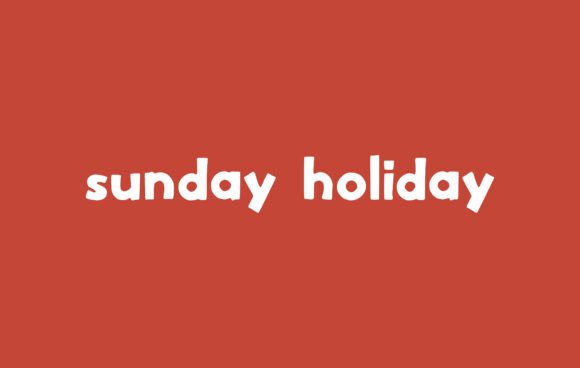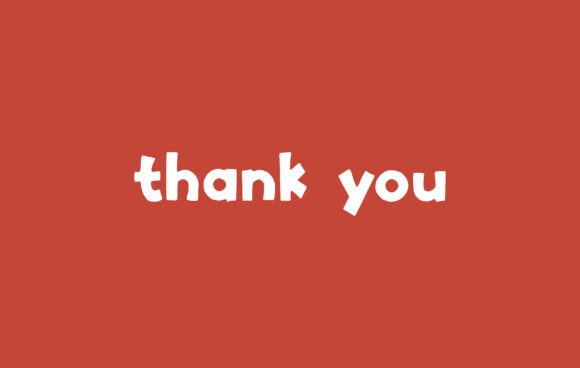
Aura Font: Elevate Your Designs with a Touch of Romance
In the world of typography, a font can make or break a design. For creatives, finding the perfect font that captures the essence of their project can be a daunting task. However, if you’re looking for a font that exudes romance, elegance, and sophistication, look no further than Aura Font. In this article, we’ll dive into the world of Aura Font, exploring its features, uses, and benefits for designers and crafters.
What is Aura Font?
Aura Font is an authentic handwritten font that boasts a romantic touch. Expertly designed to capture the hearts of designers and crafters, this font has the potential to elevate your creative ideas to new heights. With its legible and versatile design, Aura Font is perfect for a wide range of applications, from title text to body text.
Features of Aura Font
Aura Font comes with a multitude of features that make it a standout in the world of typography. Some of its notable features include:
- Authentic Handwritten Design: Aura Font is carefully crafted to mimic the imperfections and uniqueness of handwritten text, giving your designs a personal touch.
- Romantic Touch: The font’s romantic undertones make it perfect for designs that require a touch of elegance and sophistication.
- Legibility: Aura Font is designed to be highly legible, making it suitable for both title text and body text.
- Versatility: This font can be used for a wide range of designs, including magazine headlines, social media posts, branding, wedding invitations, cards, and more.
Uses of Aura Font
Aura Font is an incredibly versatile font that can be used in various design applications. Here are some ideas to get you started:
- Magazine Headlines: Add a touch of romance and elegance to your magazine headlines with Aura Font.
- Social Media: Elevate your social media posts with Aura Font, making them stand out in a crowded feed.
- Branding: Use Aura Font to create a unique and memorable brand identity that exudes sophistication and elegance.
- Wedding Invitations: Make your wedding invitations truly special with Aura Font, adding a touch of romance and whimsy.
- Cards and Stationery: Use Aura Font to create beautiful cards and stationery that are sure to impress.
Benefits of Using Aura Font
So, why choose Aura Font for your designs? Here are some benefits that make it a top choice among designers and crafters:
- Unique and Memorable: Aura Font’s authentic handwritten design makes it a standout in the world of typography, ensuring your designs are memorable and unique.
- Time-Saving: With Aura Font, you can create stunning designs in no time, thanks to its legibility and versatility.
- Elegance and Sophistication: Add a touch of romance and elegance to your designs with Aura Font, perfect for high-end brands and luxury designs.
- Easy to Use: Aura Font is incredibly easy to use, making it perfect for designers and crafters of all skill levels.
In conclusion, Aura Font is a game-changer for designers and crafters looking to elevate their designs with a touch of romance and elegance. With its authentic handwritten design, legibility, and versatility, this font is perfect for a wide range of applications. Whether you’re creating magazine headlines, social media posts, branding, wedding invitations, or cards, Aura Font is sure to impress. So, why wait? Give Aura Font a try today and take your designs to new heights!